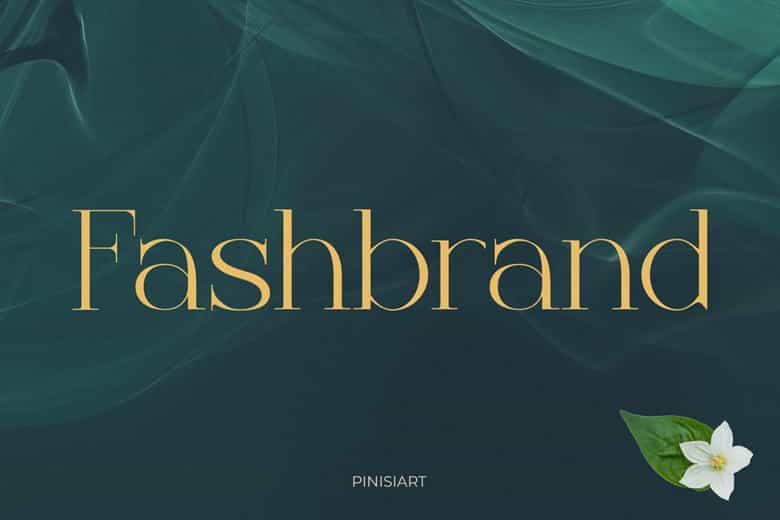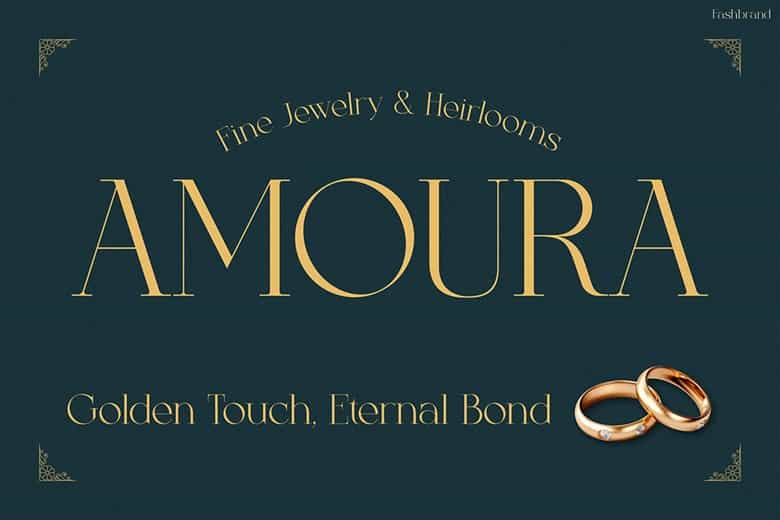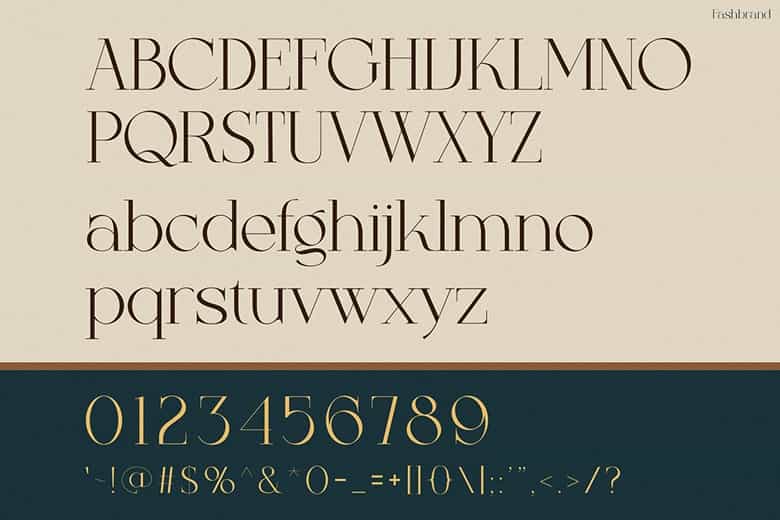
Fashbrand is a new serif font. It comprises modern simplicity combined with eternal beauty with its rounded lines and daring vertical lines as well. Consequently, your work becomes sophisticated with a high-end touch that will capture the attention of platforms. Every letter of Fashbrand has the accurate detail and fluent building. Although it appears to be elegant, it can do several types of formats. It is clean and fashionable at headlines to captions.